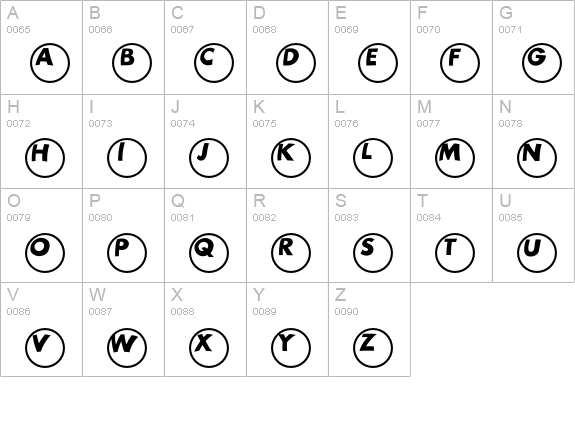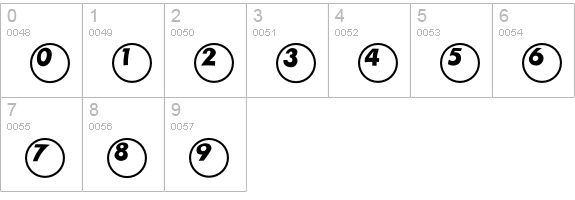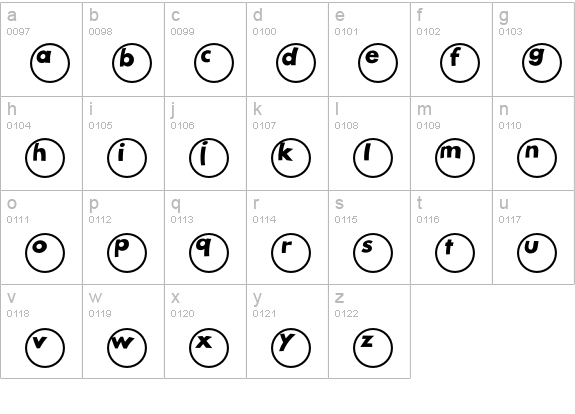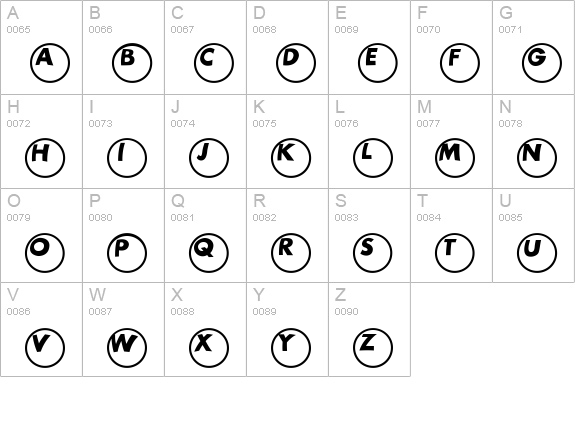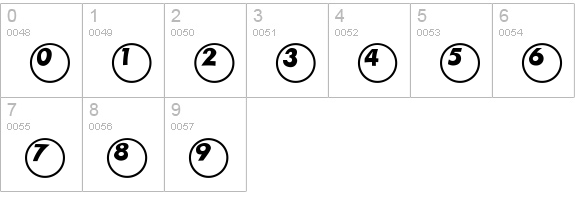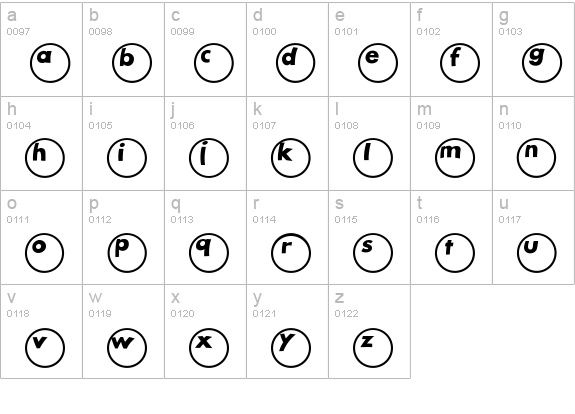
Ball Font Details
The Ball font is a modern and versatile typeface that exudes a sense of playfulness and creativity. With its rounded edges and bold letterforms, this font is perfect for a wide range of design projects, from branding to advertising to social media graphics. The best part? It's completely free to download at FontsMarket.com, making it easily accessible to designers of all levels. Whether you're looking to add a touch of fun to your next project or simply want to experiment with a new font style, Ball is sure to impress with its unique charm and readability. Download it today and let your creativity soar with this amazing free font!